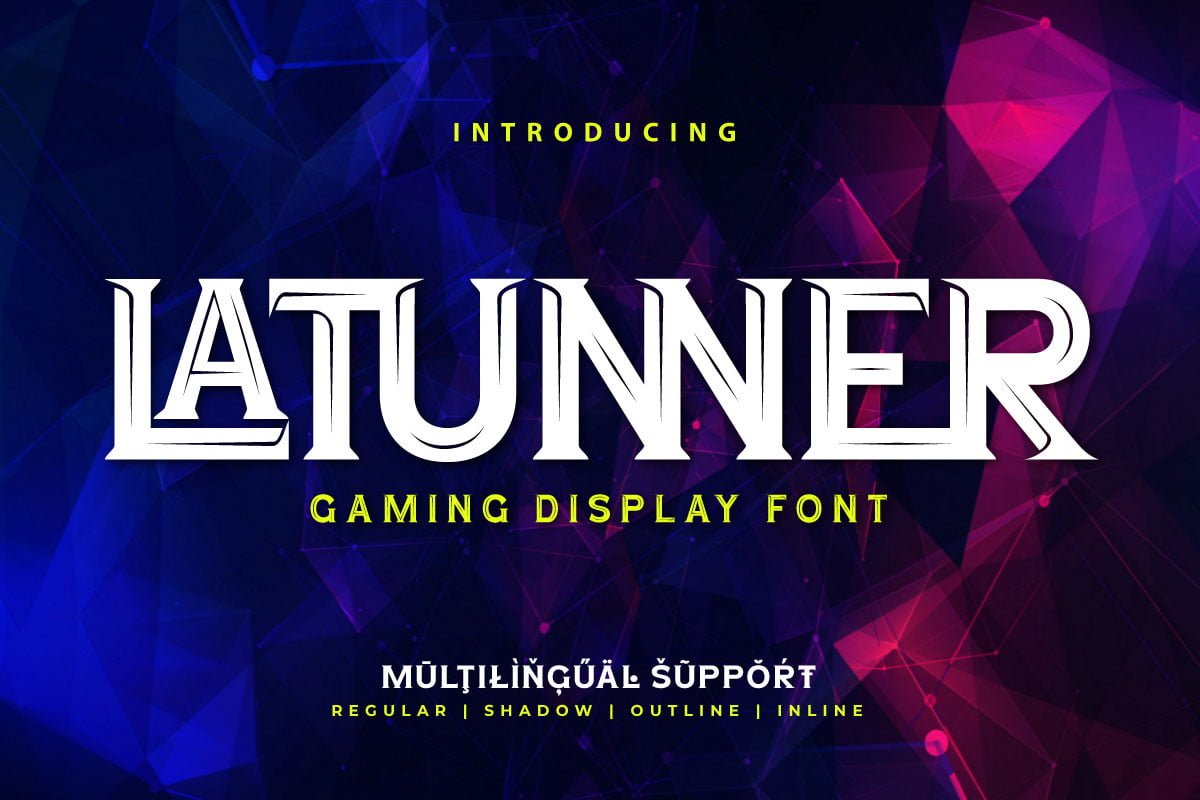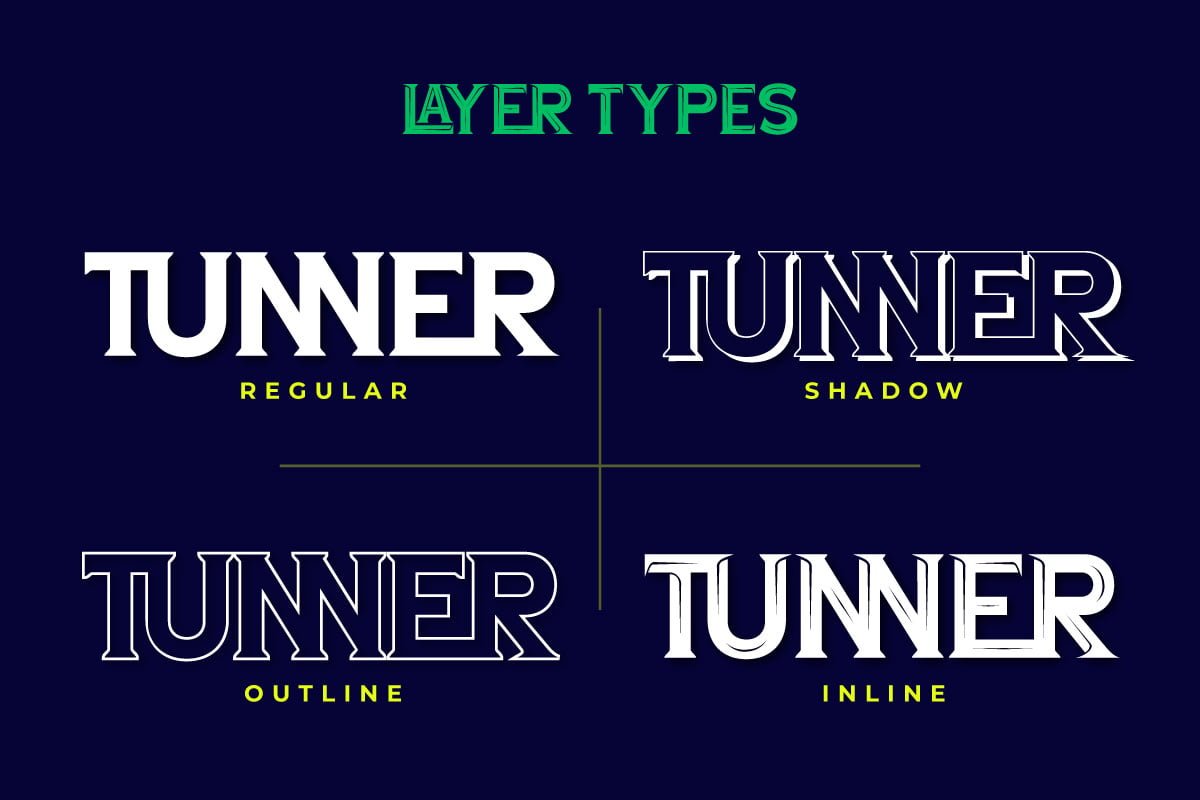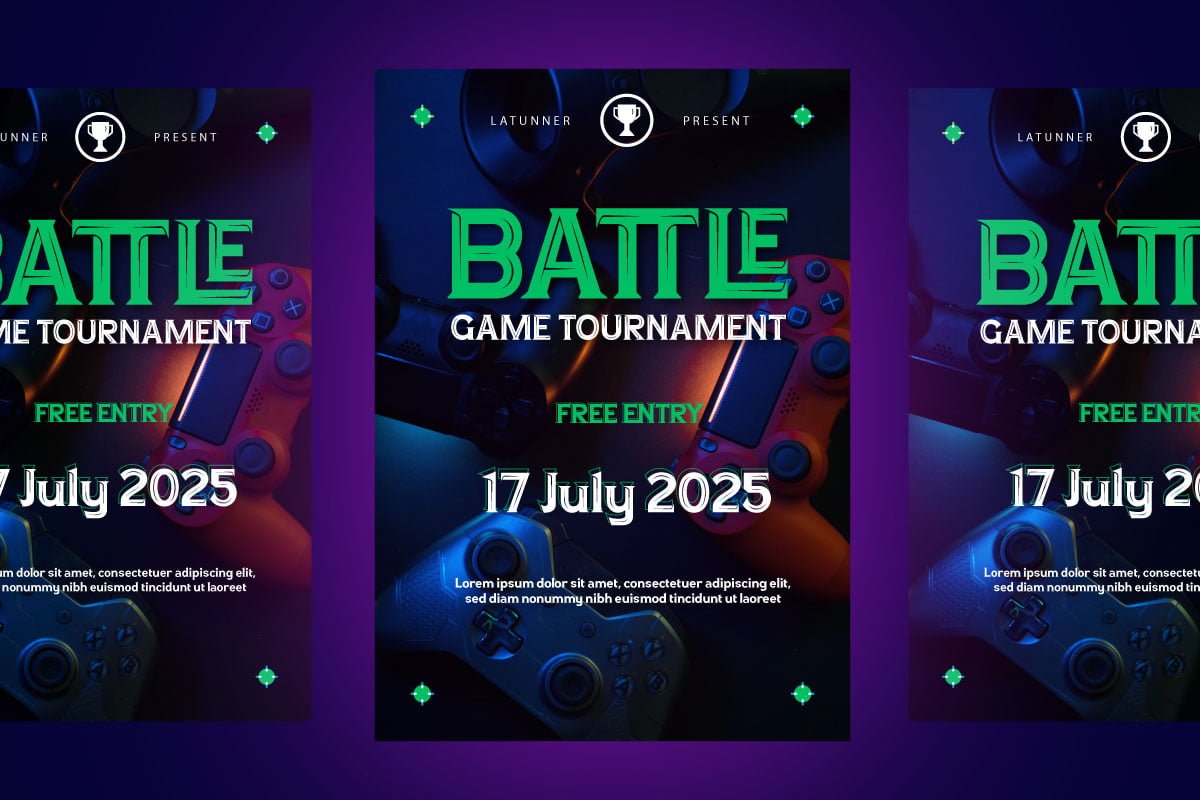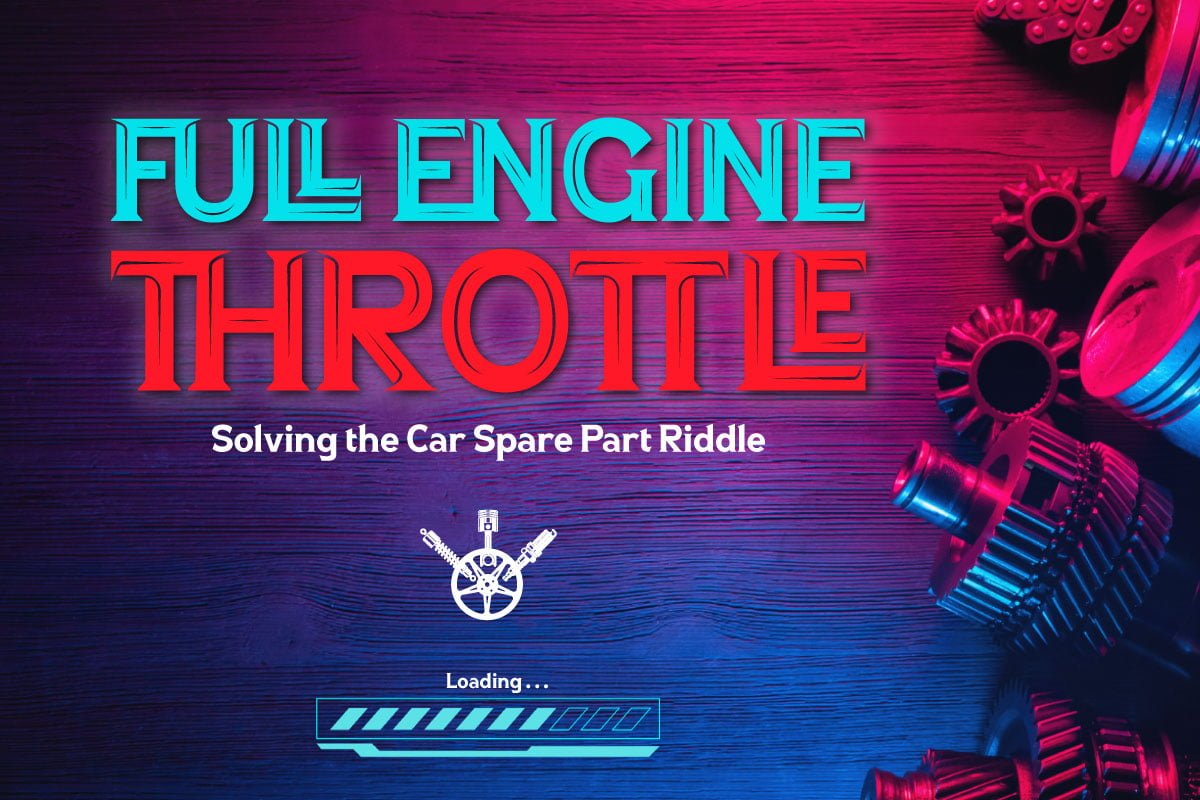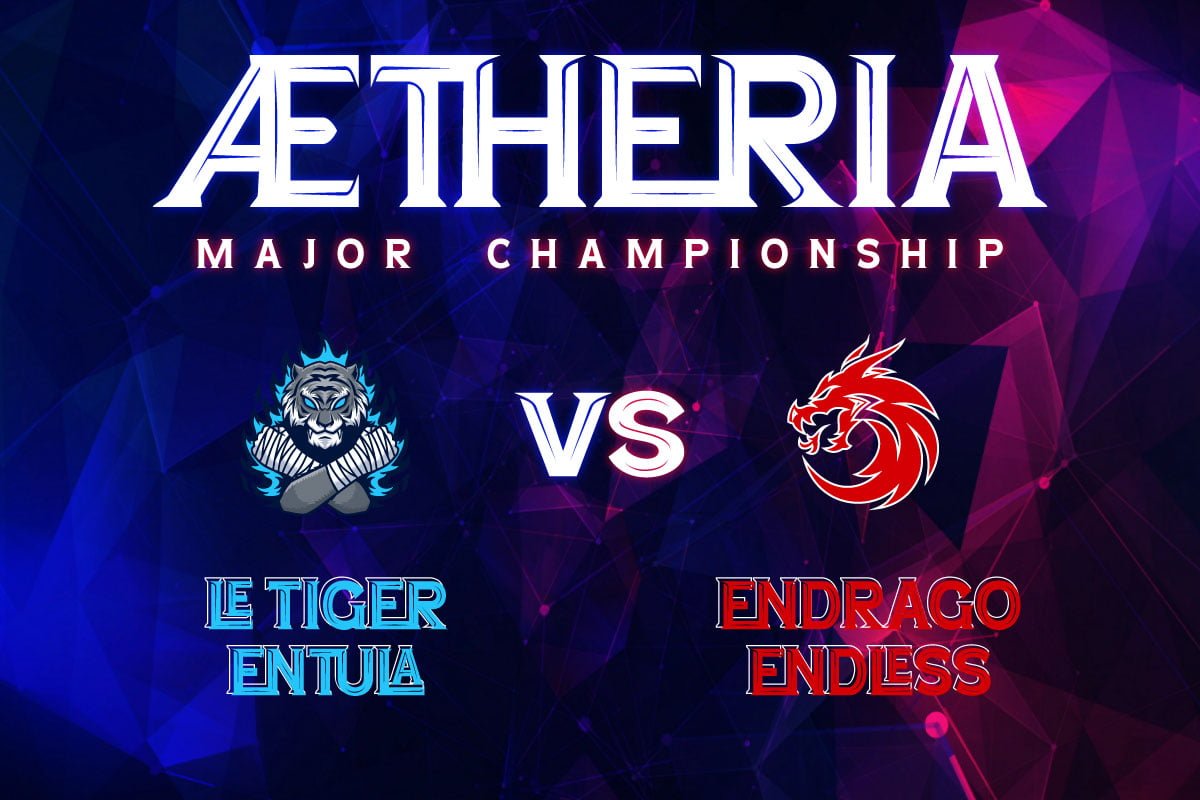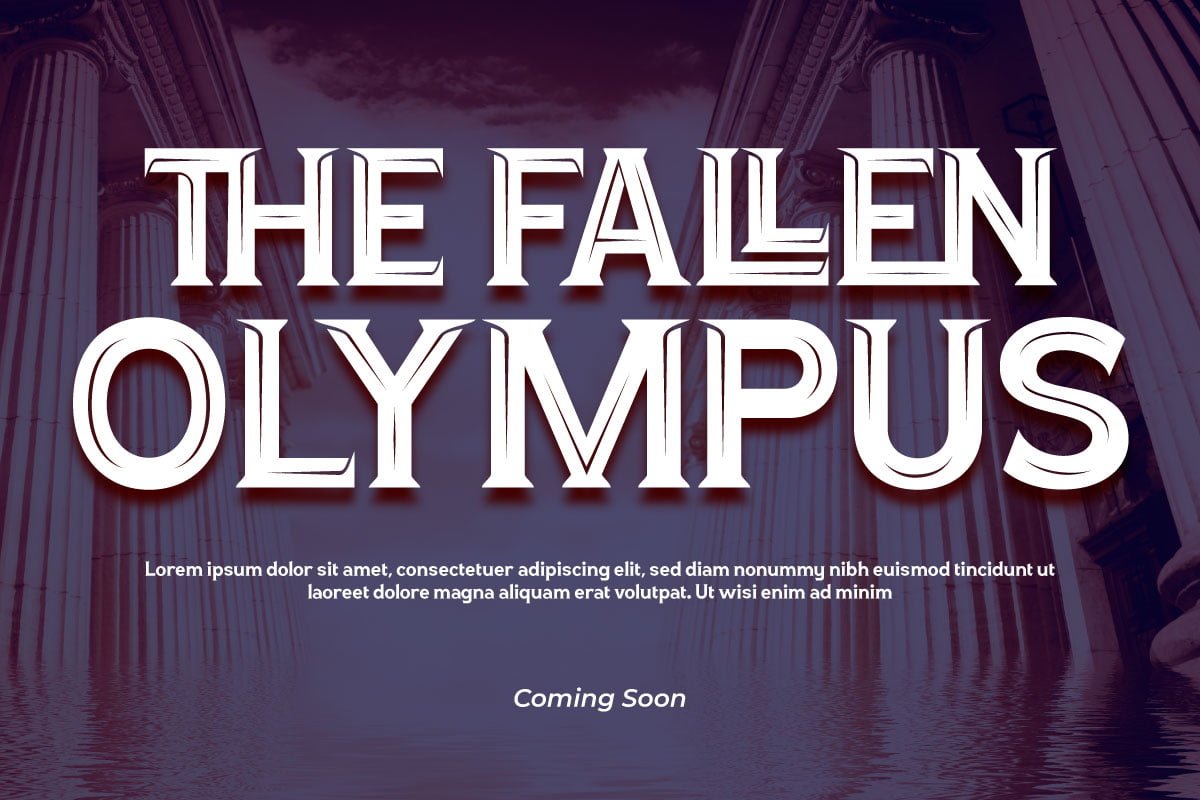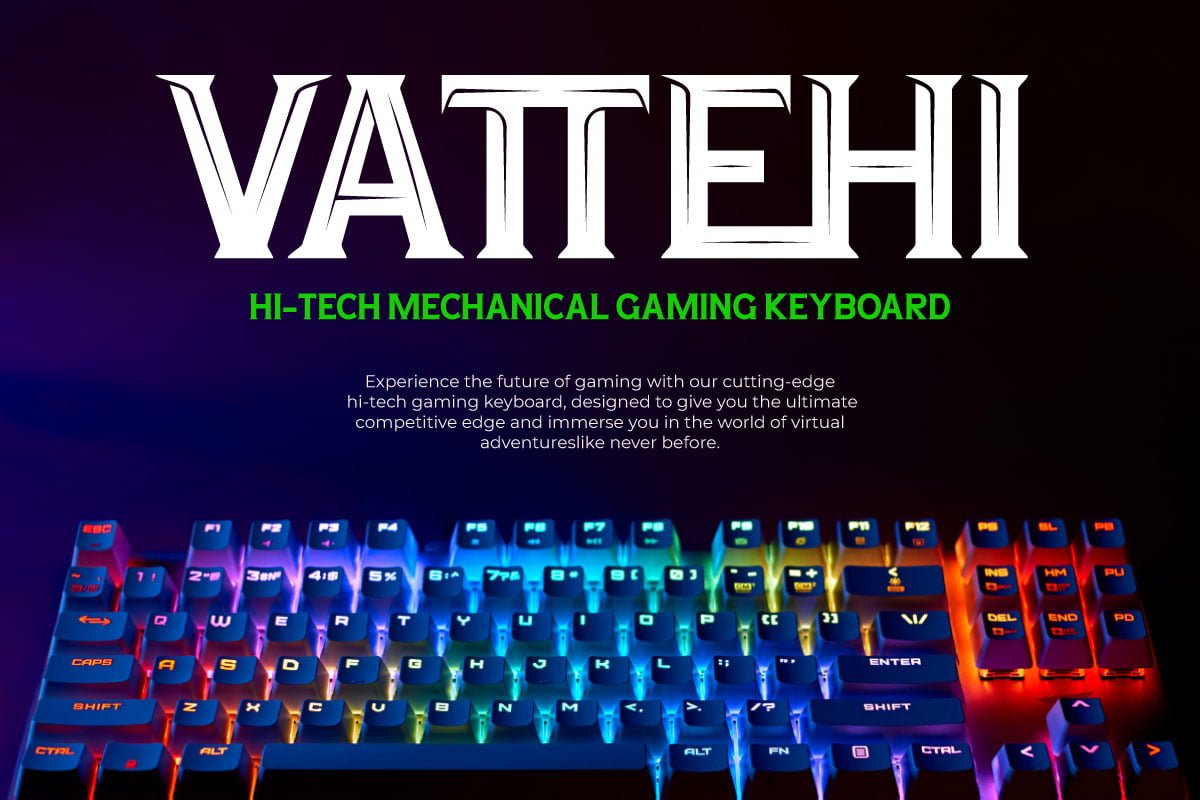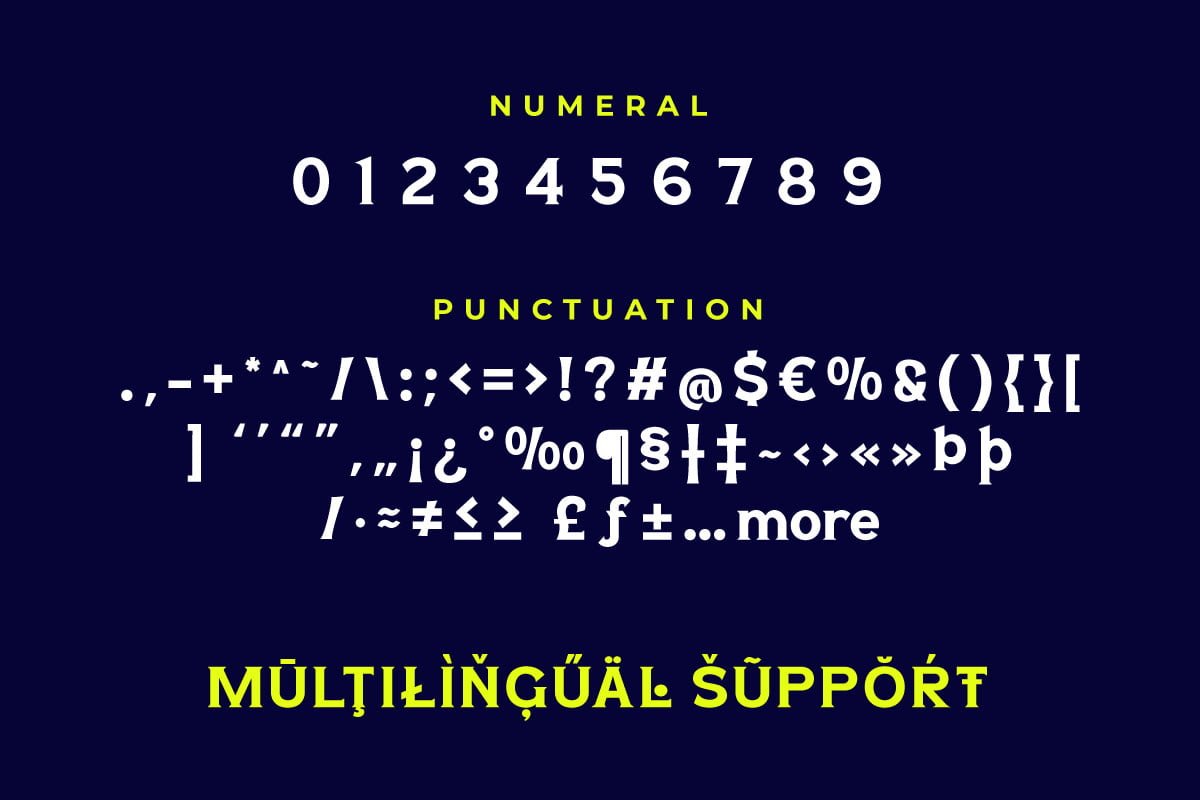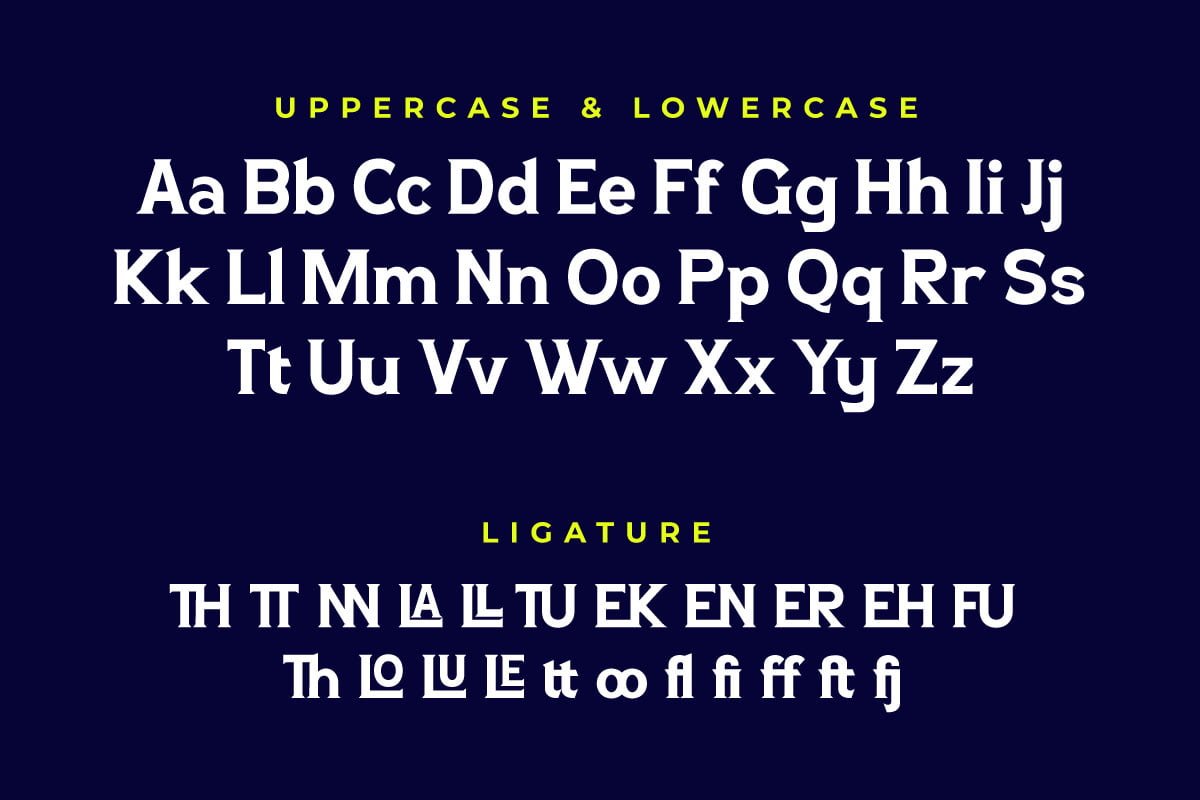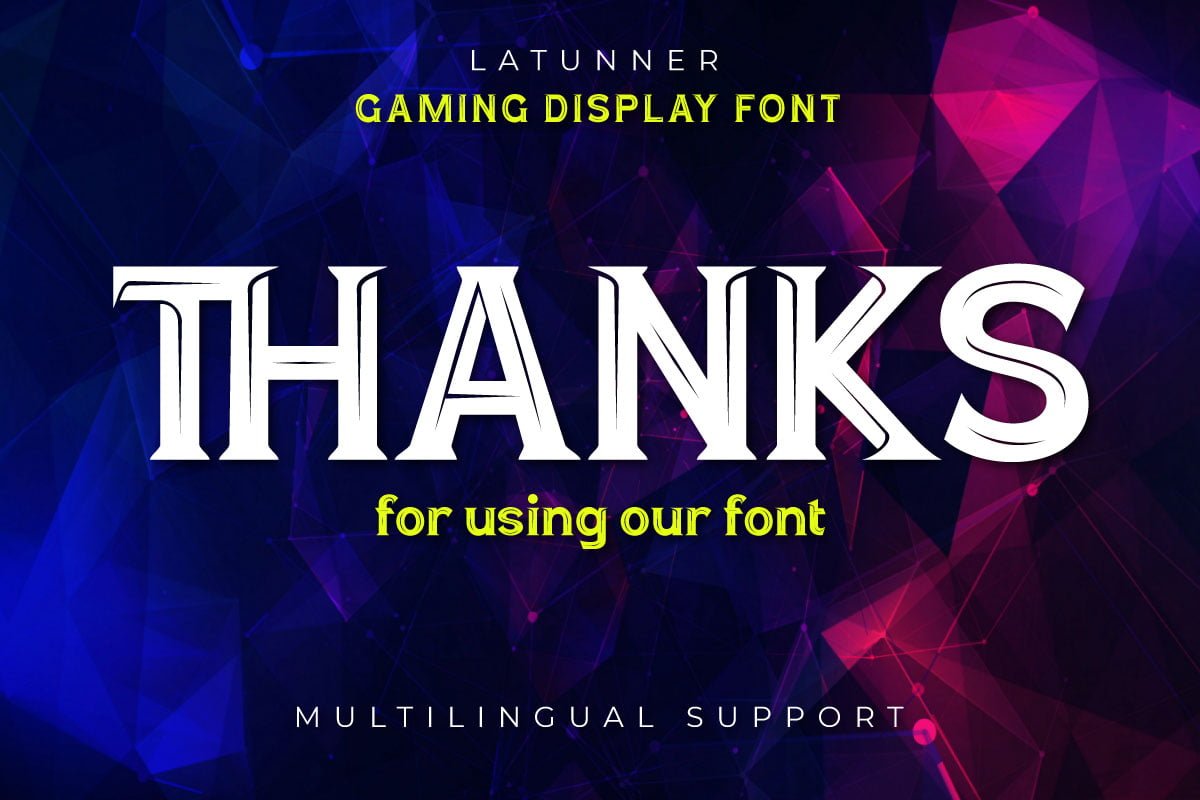
7. Latunner – Gaming Display Font
Latunner – Gaming Display Font
Inline
Outline
Shadow
Welcome to the world of typography full of energy and power! Latunner is a Gaming display-style font that brings a sharp, bold, and fun touch to any of your projects. This is the perfect solution to give a futuristic look, as if your project came out of a game or movie screen, and gives a strong visual appeal.
Latunner not only met expectations but exceeded them. With four family variants including regular, inline, outline, and shadow, this font provides unlimited flexibility to create the exact style you want. Its ligature feature allows you to create unique letter combinations and add a personal touch to your projects.
We understand that language is a bridge to a wider audience, therefore, Latunner supports multiple languages, allowing you to communicate with everyone around the world.